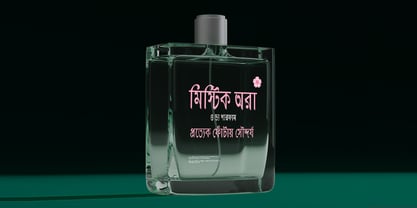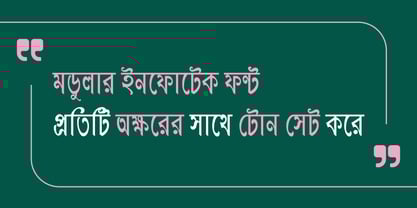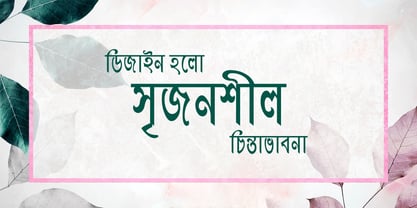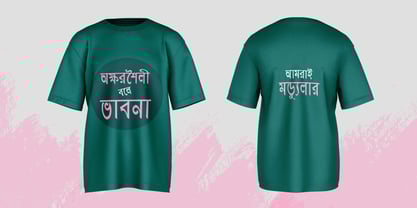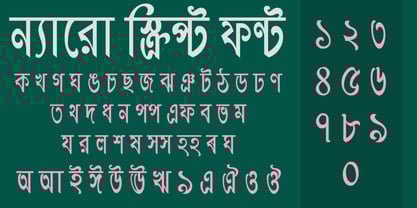
Shree Bangali 0554
by Modular InfoTech
The Shree Bangali 0554 Font Family was designed by Modular Infotech and published by Modular InfoTech. Shree Bangali 0554 contains 2 styles and family package options. More about this family
Shree Bangali 0554 is a finely crafted Bengali typeface presented in Regular with Italic variation, offering a clean and graceful look that emphasizes simplicity. Its forms are fluid yet disciplined, reflecting the natural rhythm of Bengali script while ensuring clarity in every setting. The design captures a balance between traditional elegance and modern restraint, making it a dependable choice for professional and creative communication alike.
This typeface is well suited for academic publishing, formal documents, and editorial layouts that demand clarity and refinement. It also works effectively in invitations, literary works, and branding applications where a subtle but dignified tone is essential. With Italics adding expressive variety, Shree Bangali 0554 performs reliably across both print and digital formats.